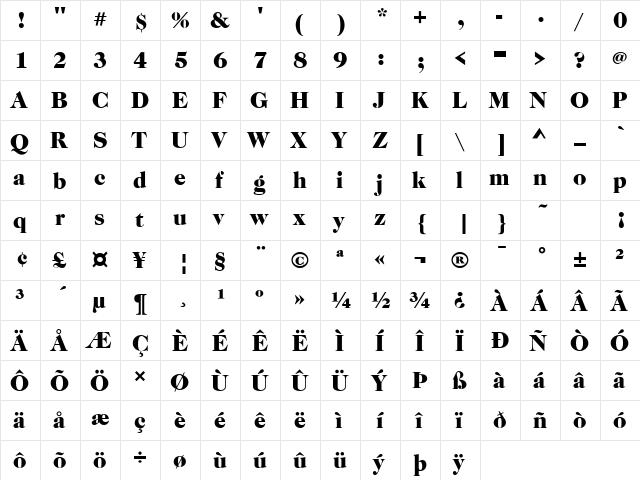
Caslon No224 ITC T Black Regular
Design Context for Caslon No224 ITC T Black Typeface
Caslon No224 ITC T Black takes a measured approach to typography — its balanced proportions and neutral character make it a reliable workhorse for both digital and print work.